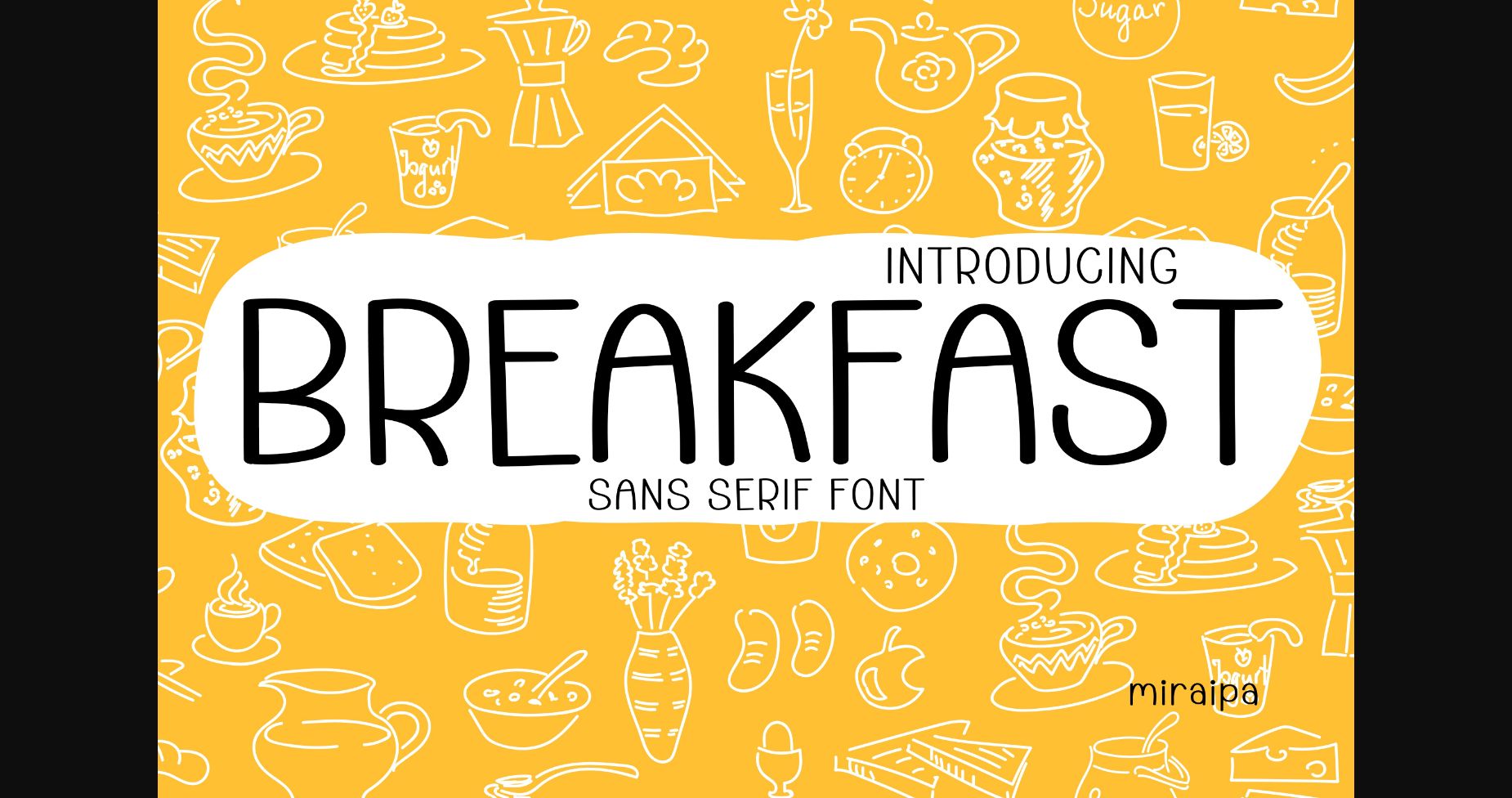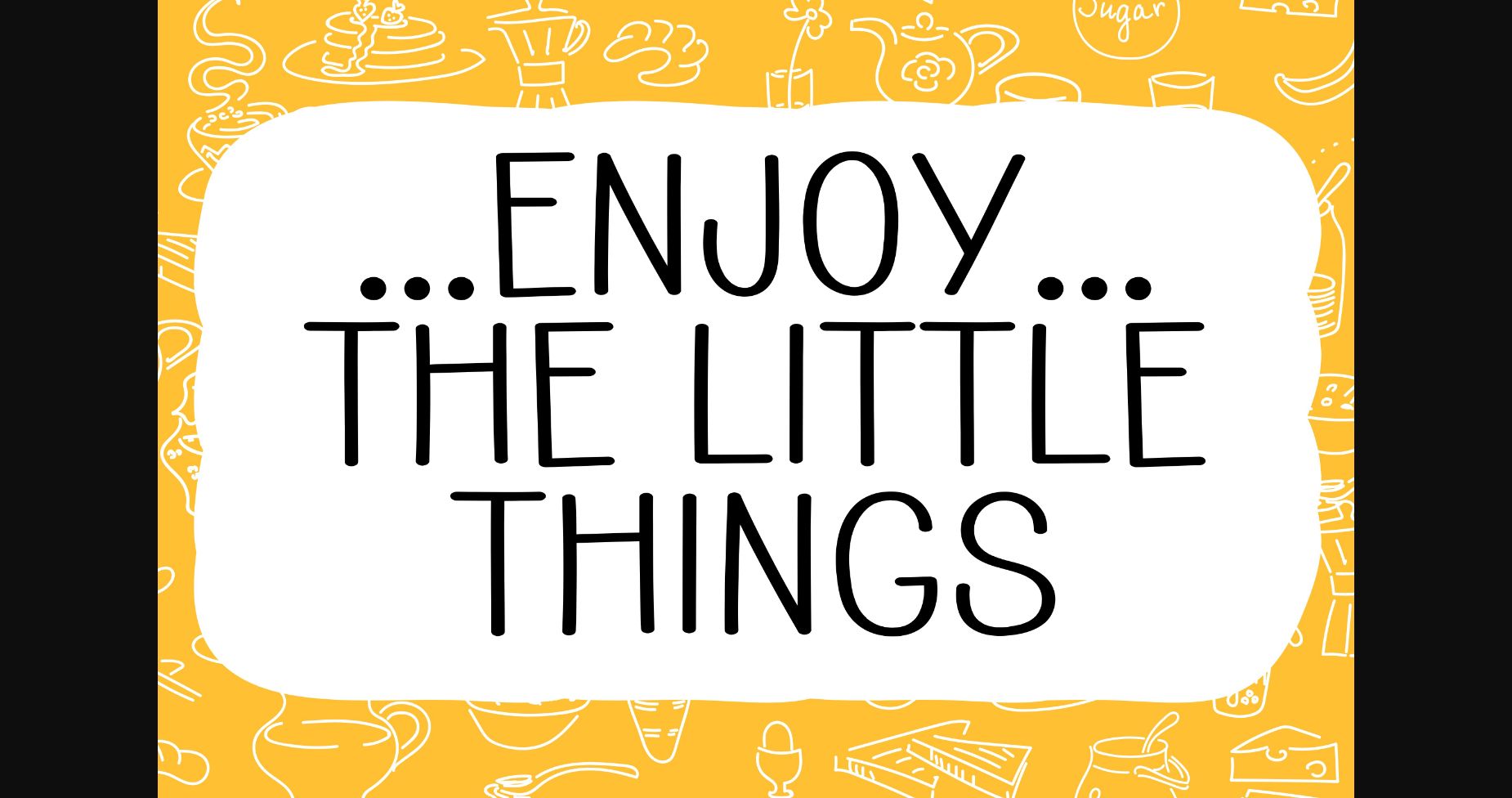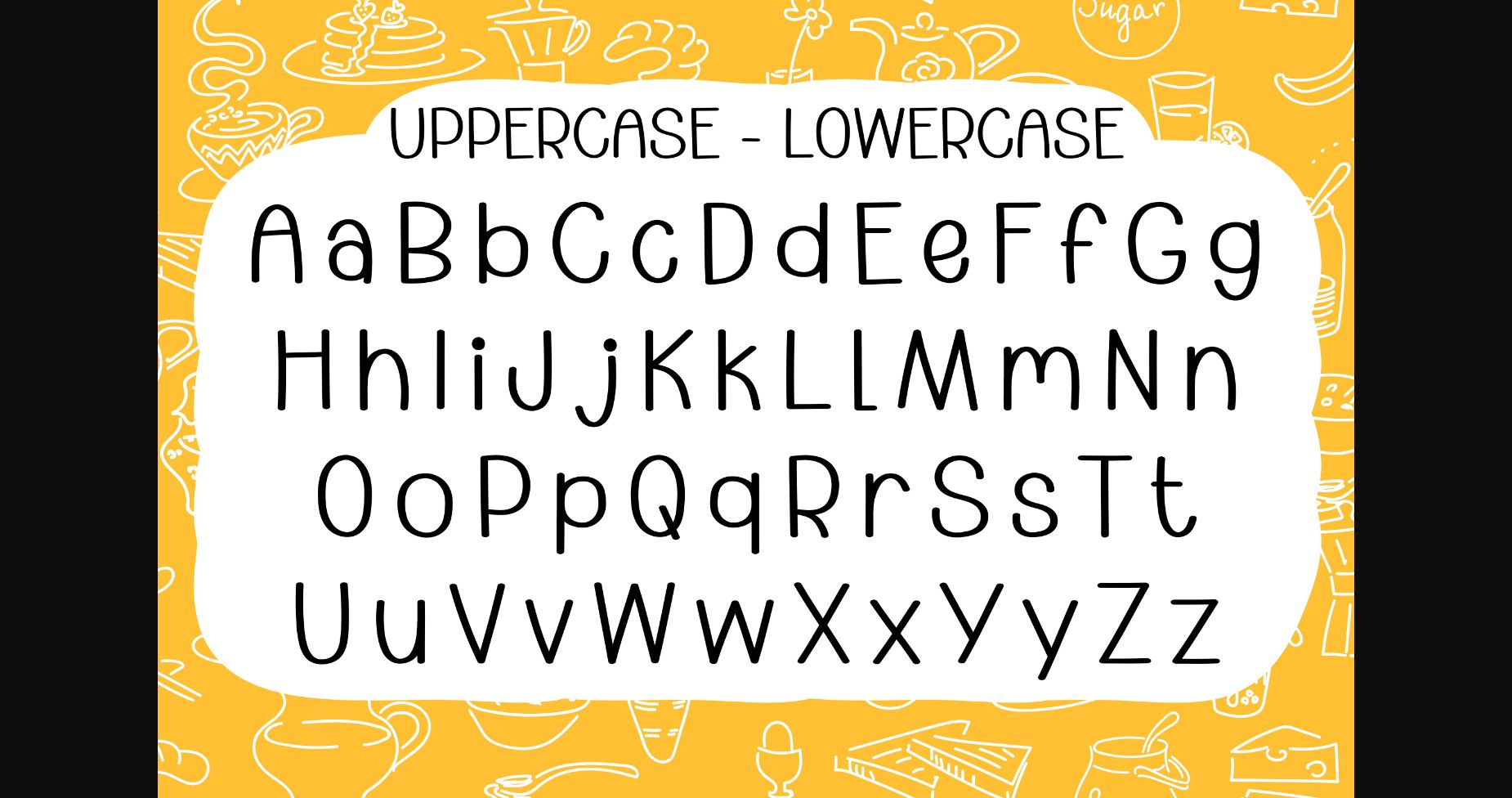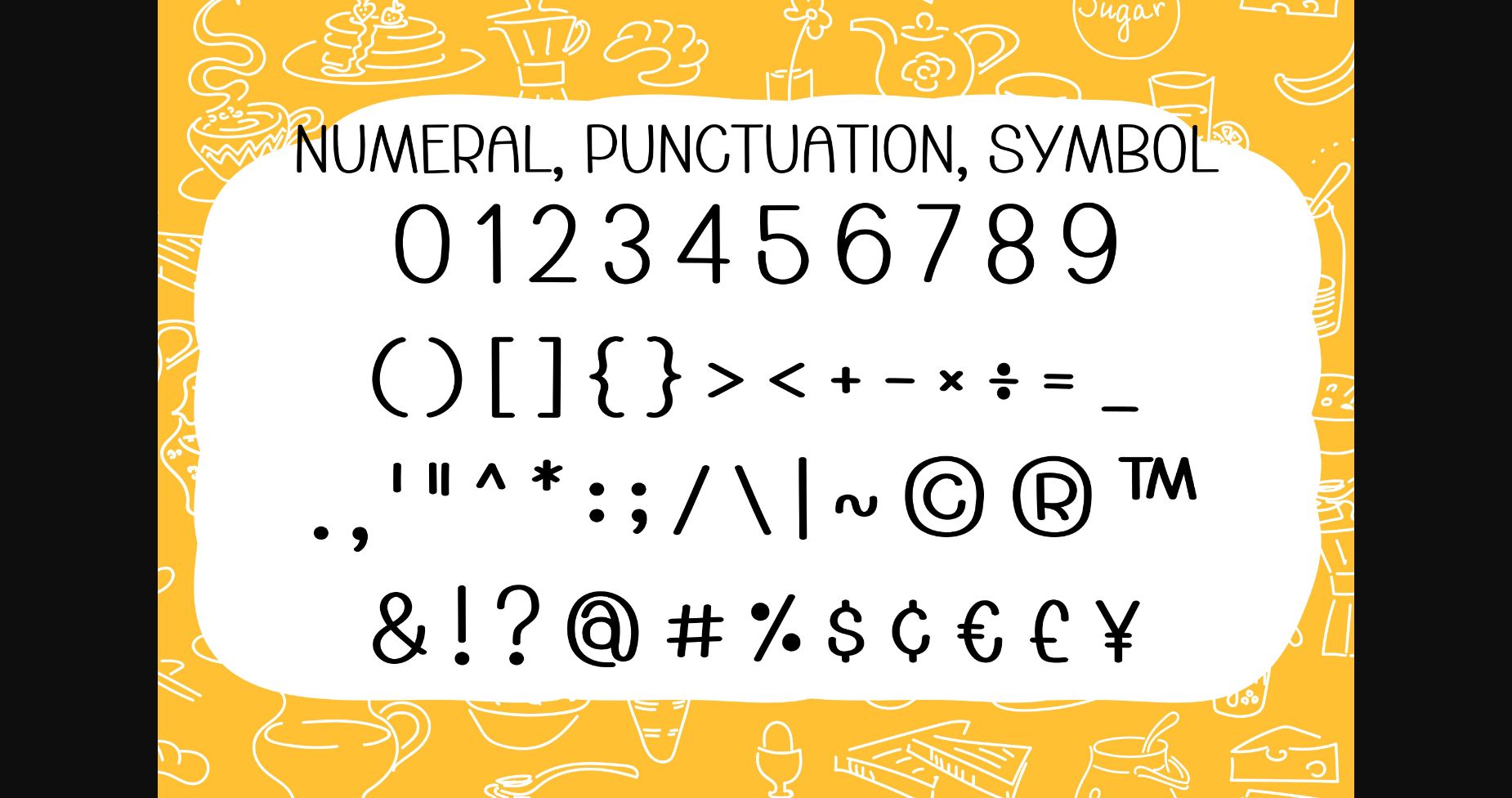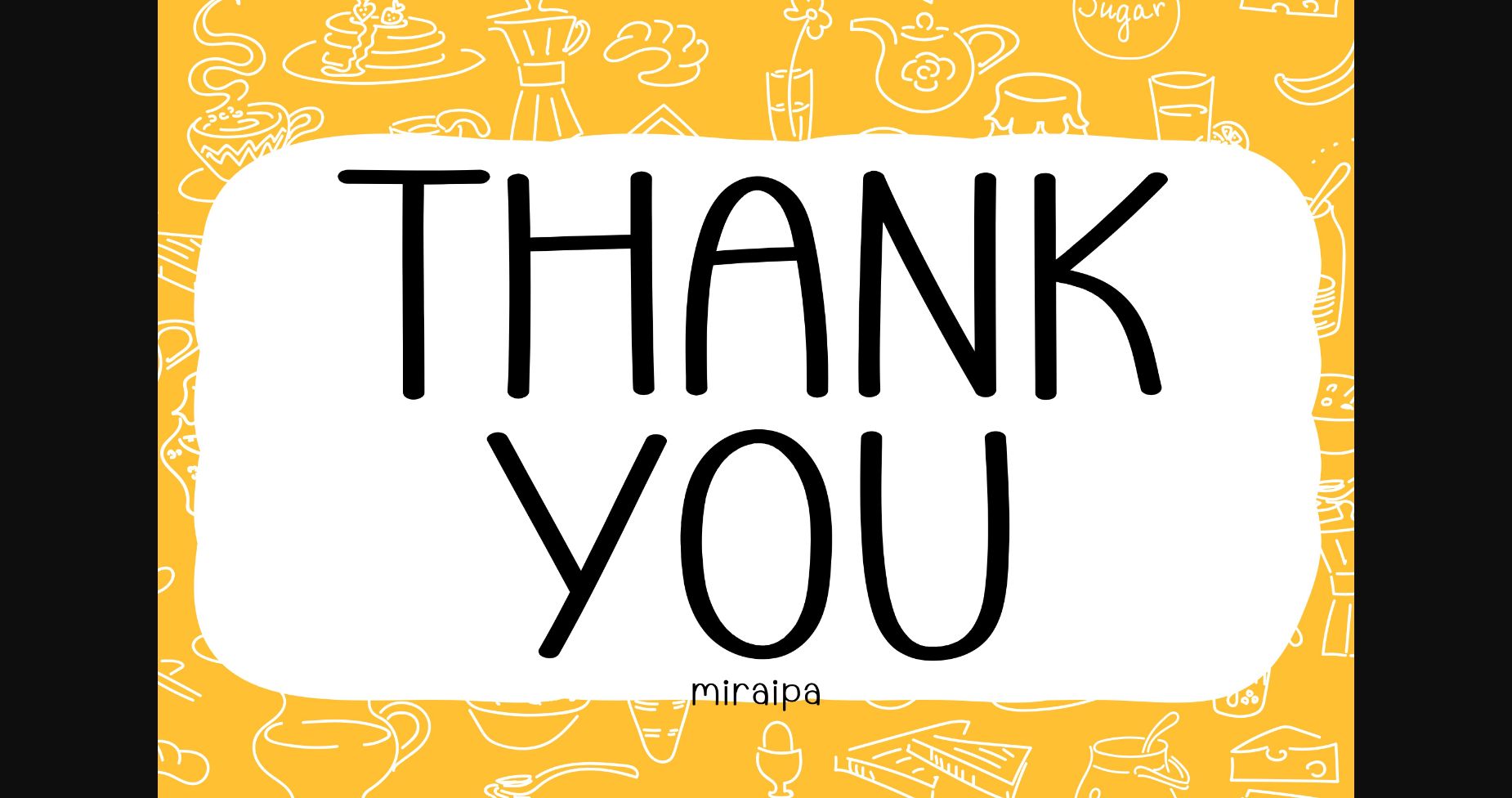
Breakfast Font
About Breakfast Font
Breakfast is designed in a lovely and friendly handwritten sans serif font style. It would be awesome for your projects or diary planner.
Let’s try it for perfect projects such as Easter, back to school, weddings, party decorations, invitations, Fall, Halloween, Christmas, posters, blogs, clothing, child-related designs, greeting cards, social media posts, or anything that needs a friendly touch.